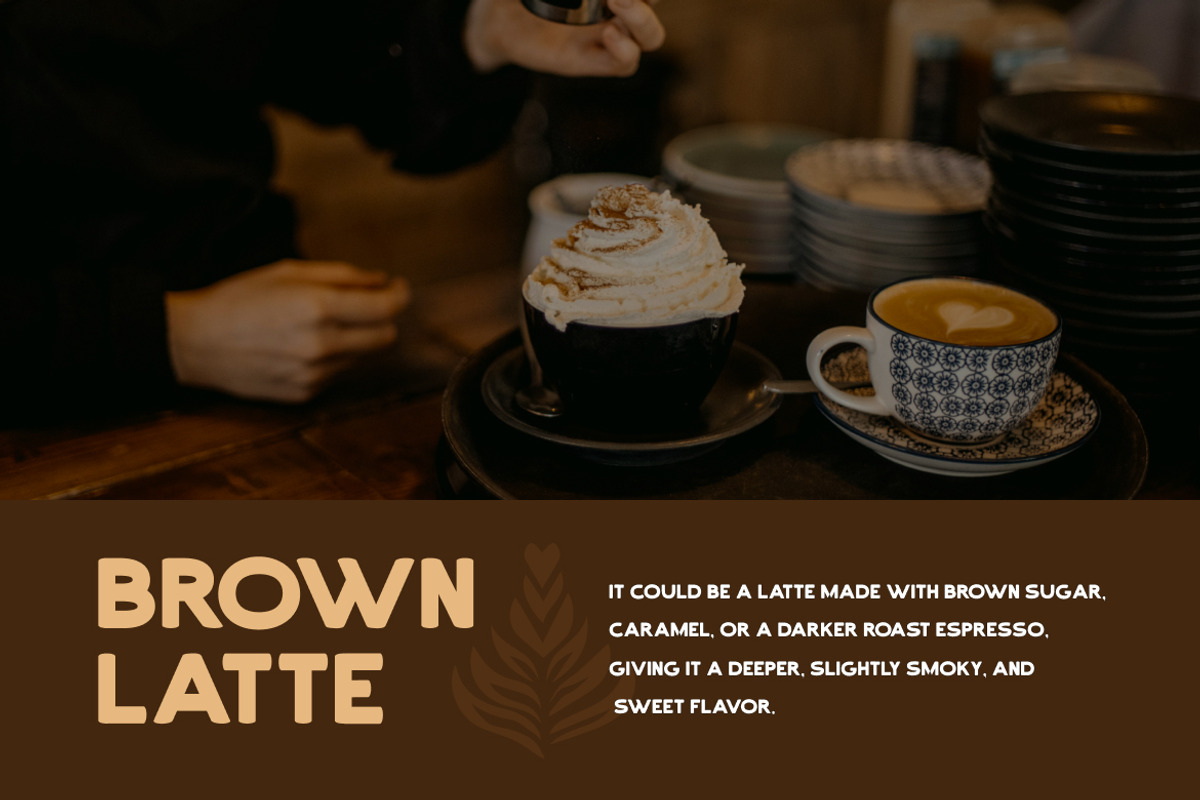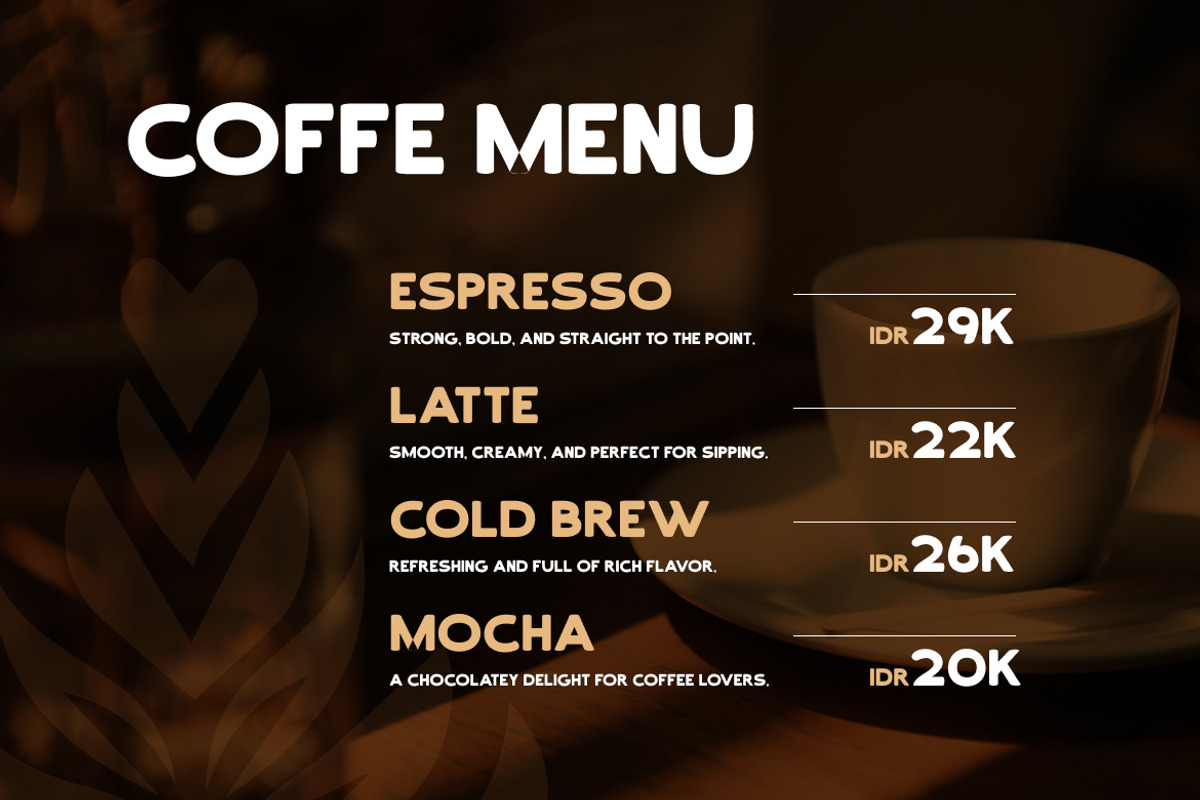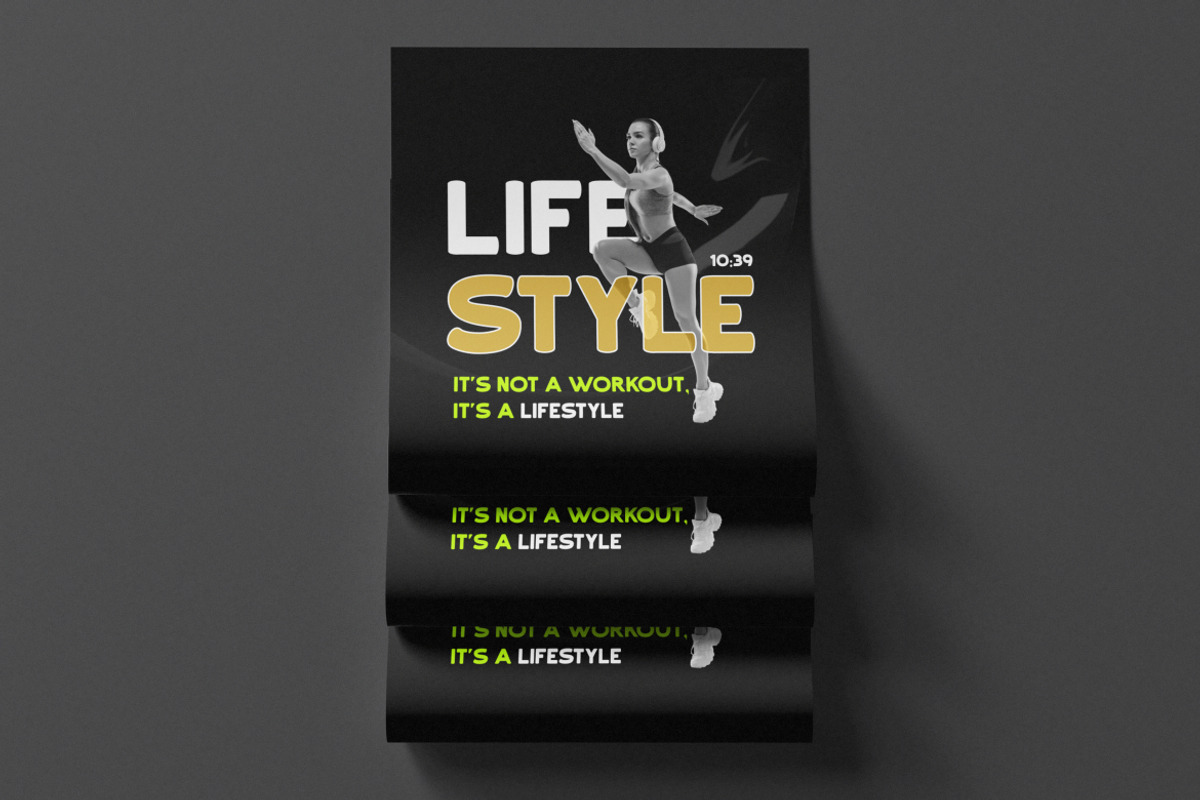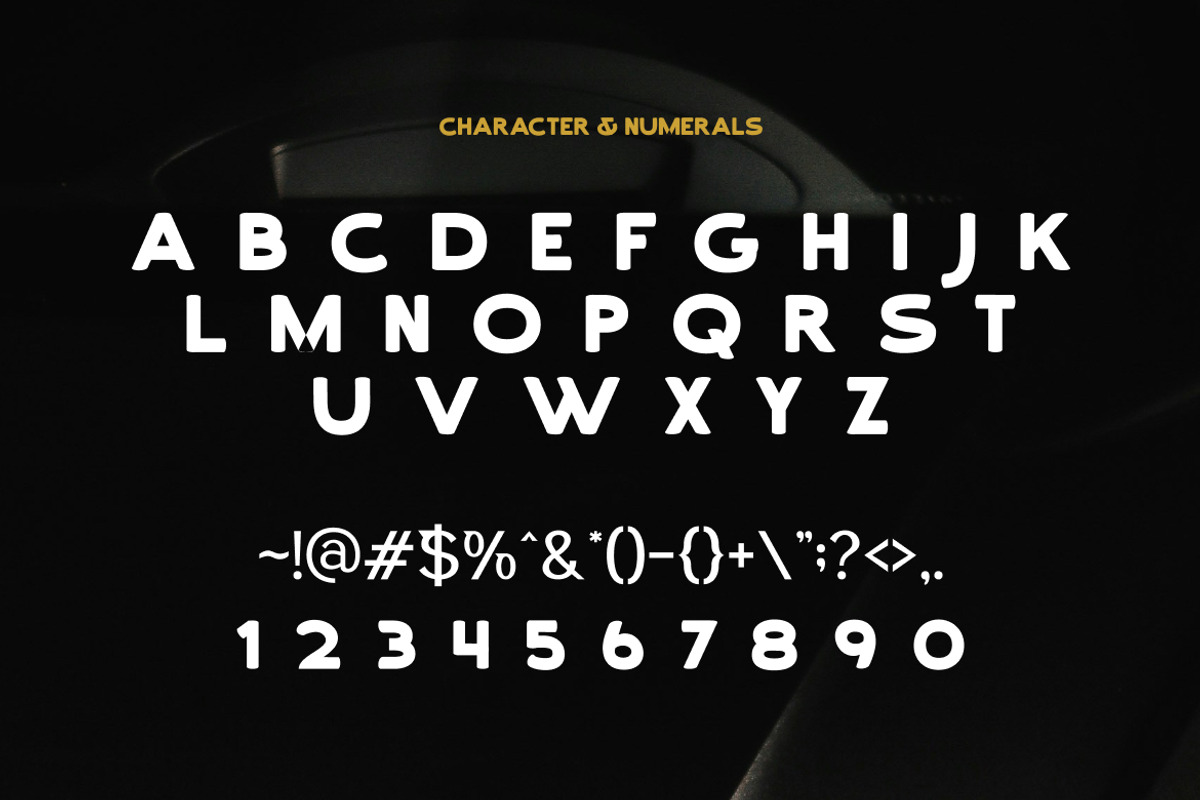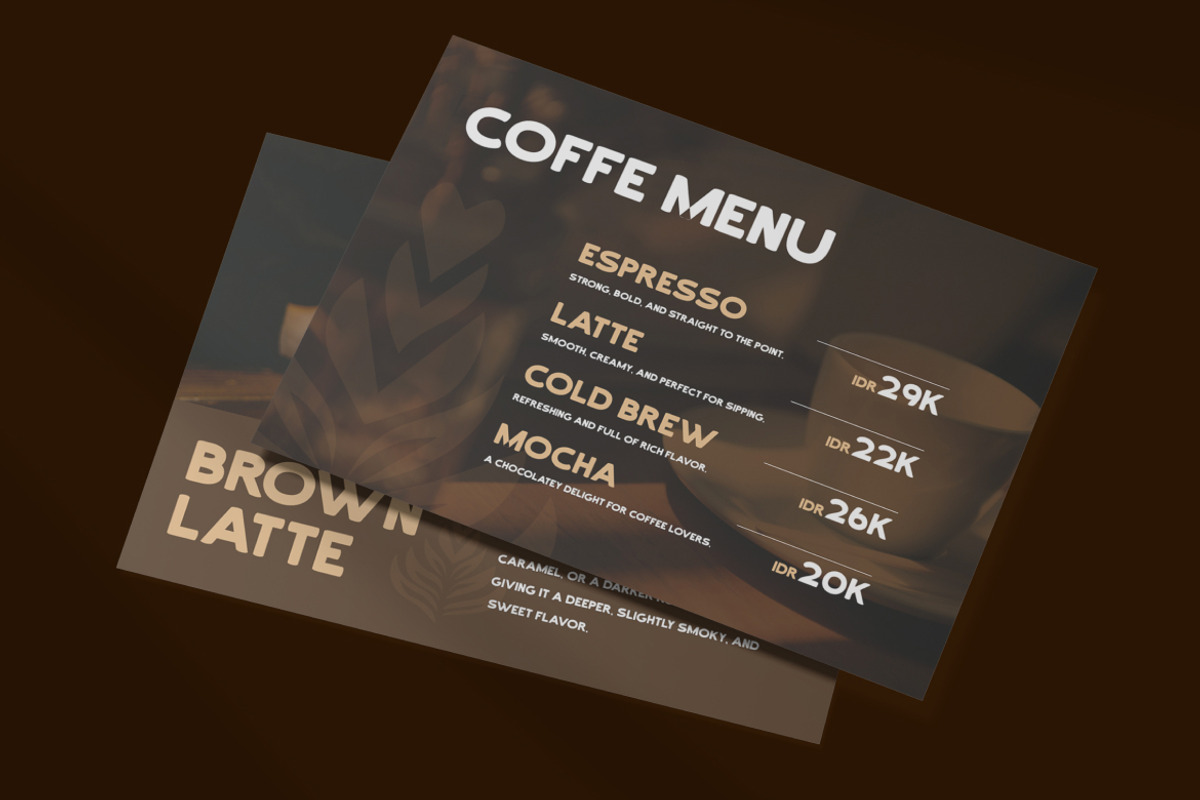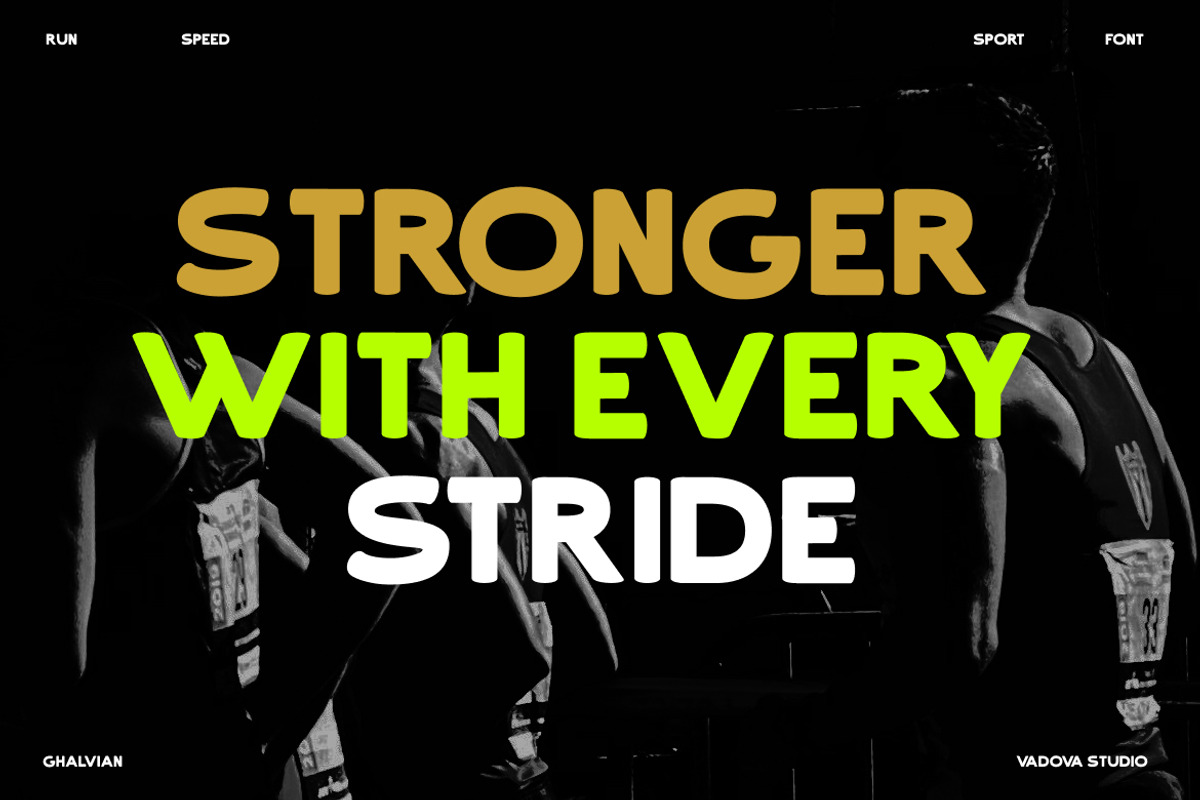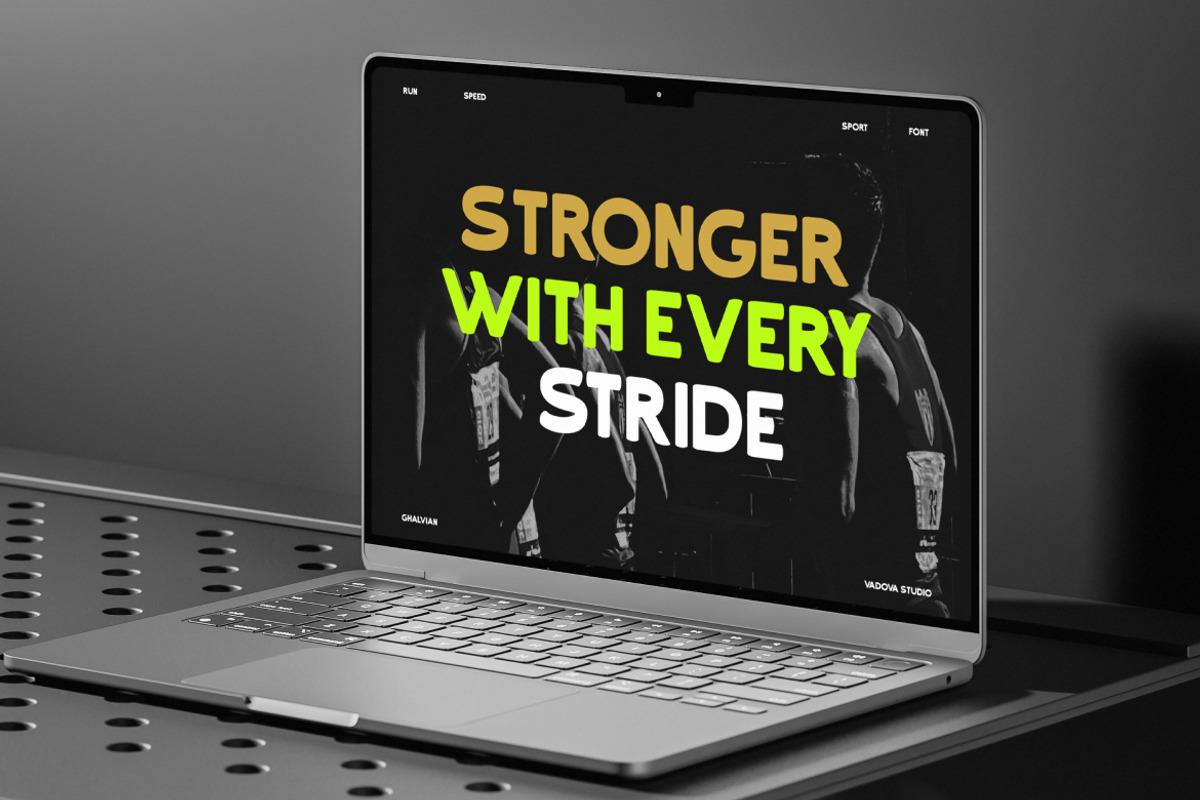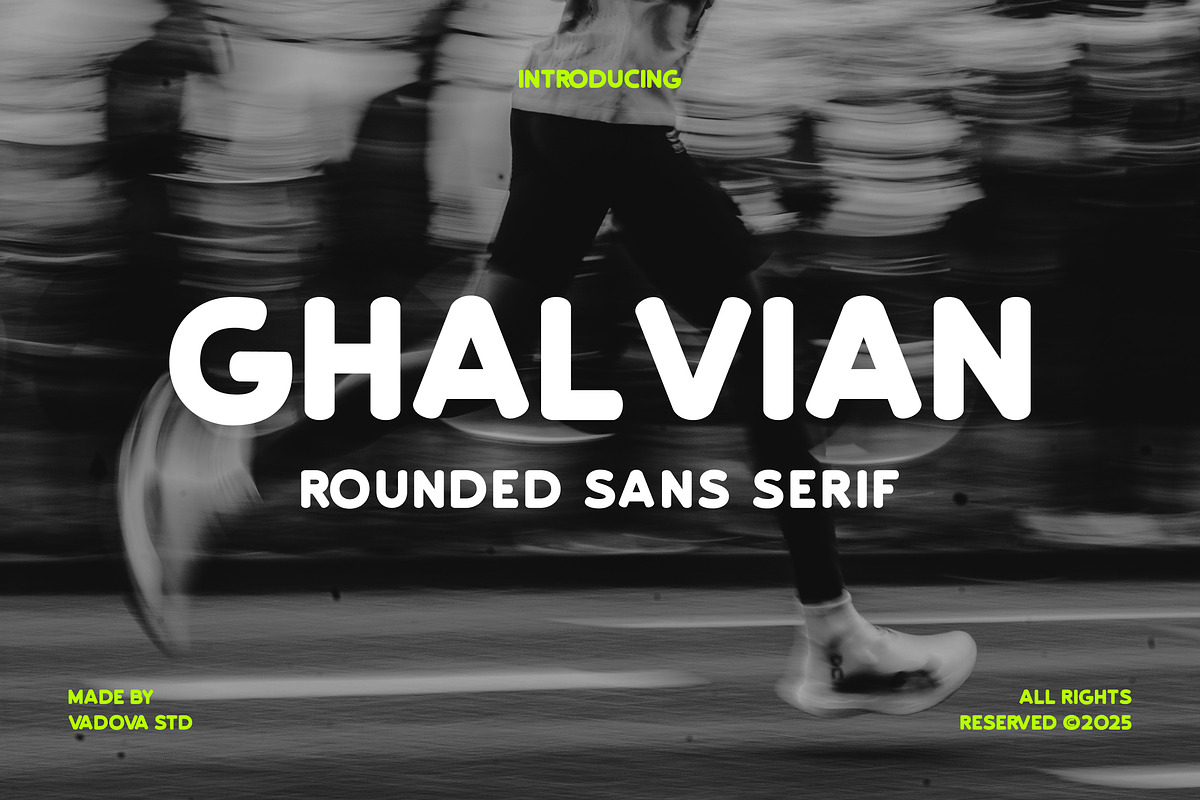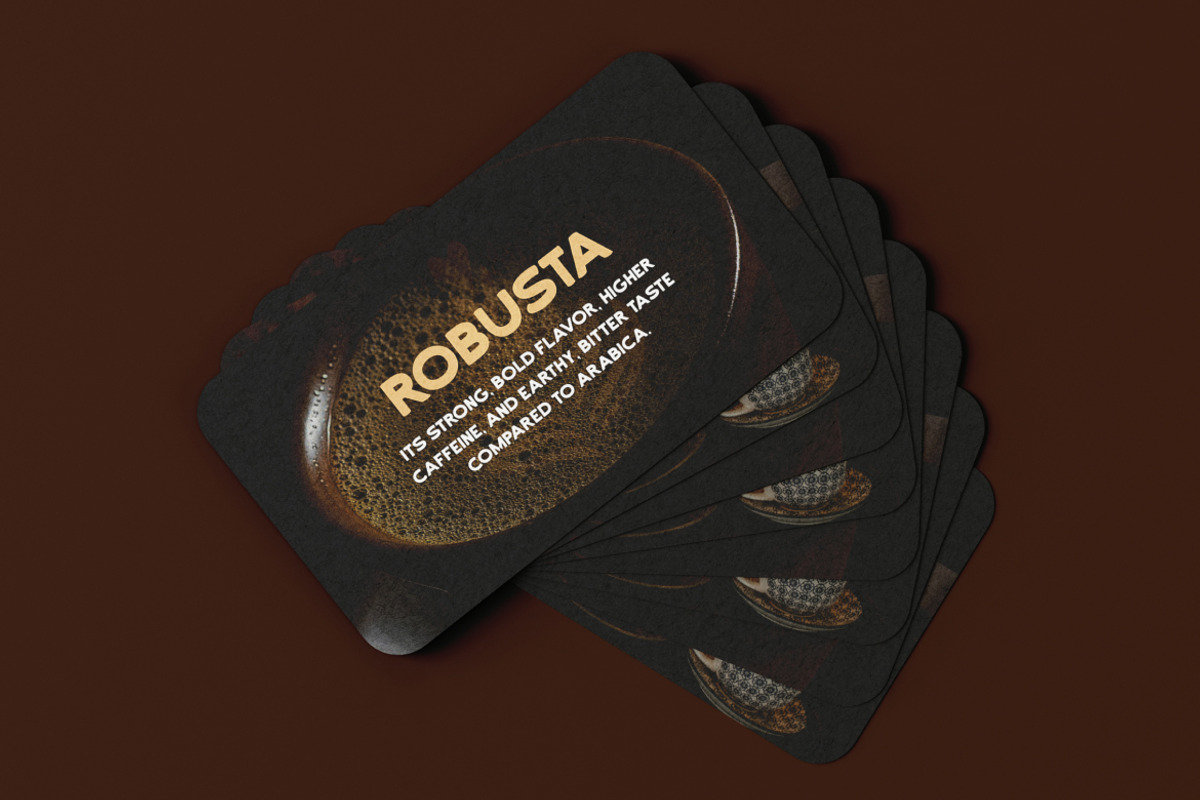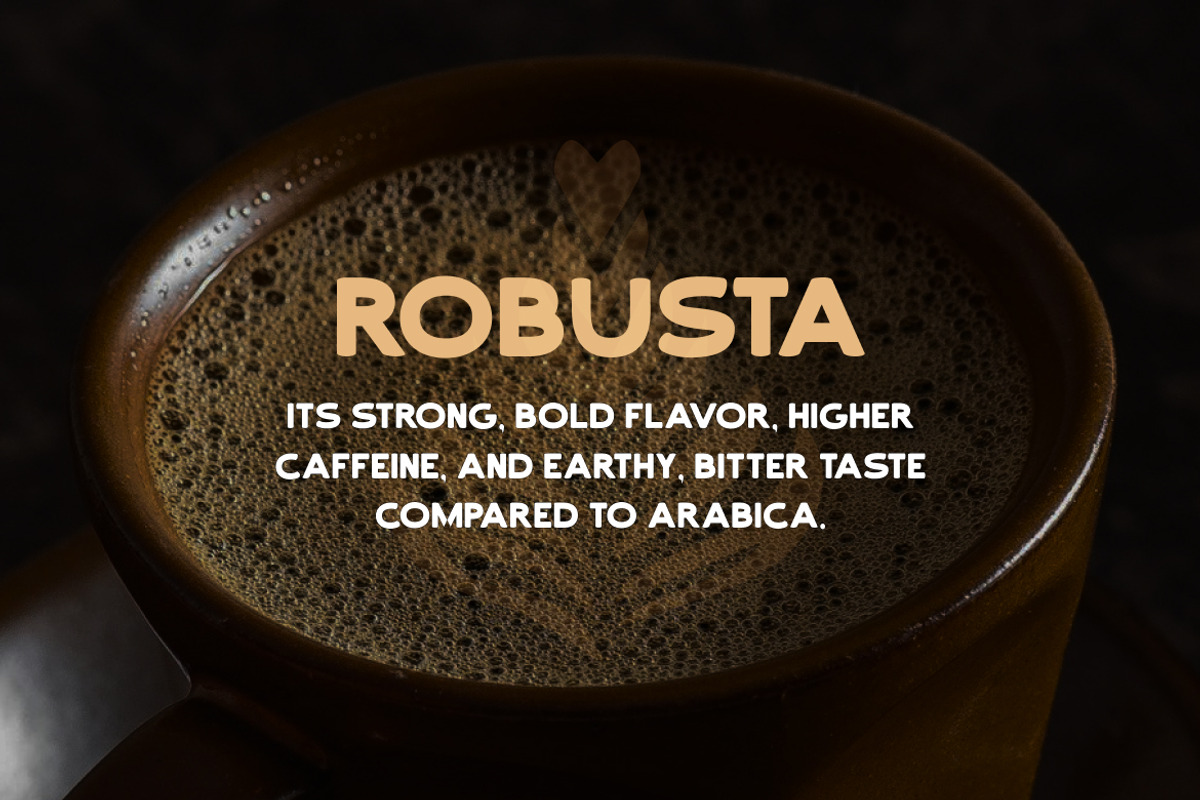
Ghalvian – Playful Bold Rounded Sans
Ghalvian is a rounded sans serif typeface designed to make a bold statement while retaining a playful and approachable vibe. With its soft curves and thick letterforms, this font combines modernity with personality, making it an excellent choice for projects that need a touch of fun and energy. Whether you are designing a sports brand, energetic social media campaign, or an eye-catching product packaging, Ghalvian brings the perfect balance of legibility and boldness.
The rounded letterforms give Ghalvian a friendly and casual feel, while its bold structure ensures that it stands out in headlines, logos, and promotional content. This font is ideal for designs that need a modern, approachable, and dynamic touch.
Why Designers Love It:
Bold and Playful: With its rounded edges and thick strokes, Ghalvian stands out in a crowd, bringing energy to your designs.
Highly Legible: The clean lines and simple shapes make it easy to read, even at large sizes.
Versatile: Perfect for branding, advertising, product packaging, and more.
Fun and Friendly: Its rounded form gives the font a welcoming and approachable aesthetic.
Modern Edge: Perfect for contemporary designs with a touch of boldness and personality.
Best Use Cases:
Sports brands & logos
Social media campaigns
Product packaging & retail displays
Modern branding & logos
Posters & advertisements
Youth-oriented marketing
Creative digital content